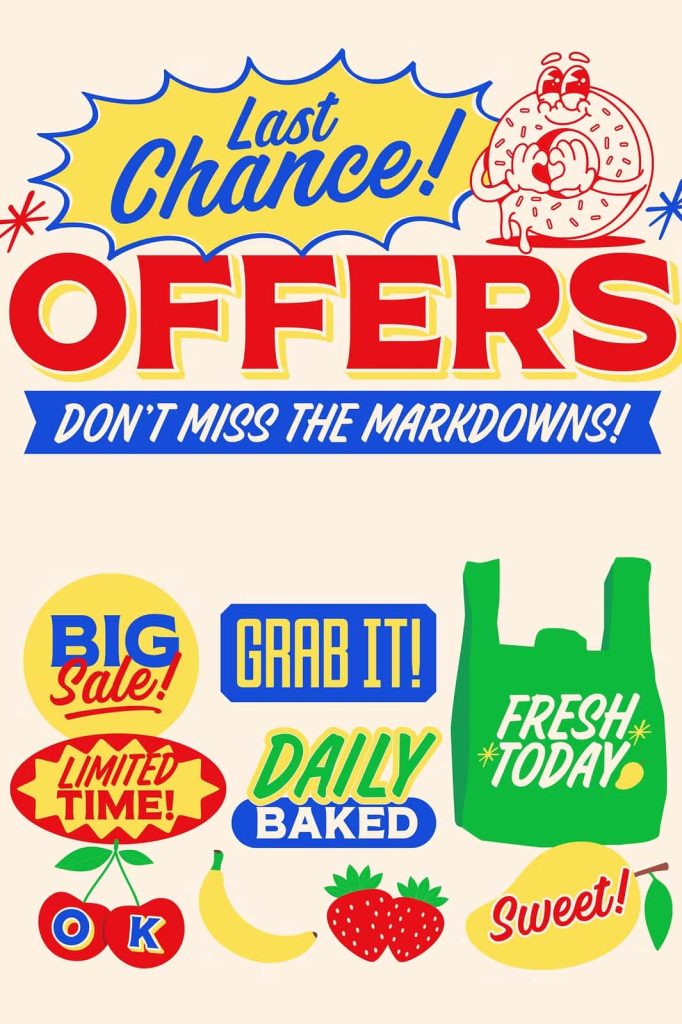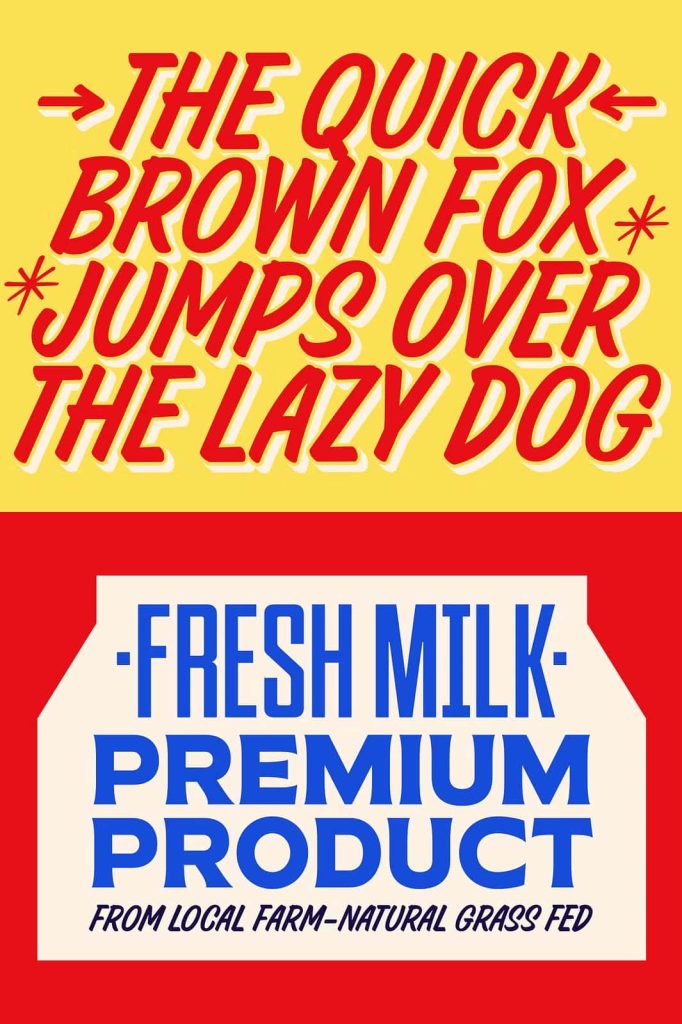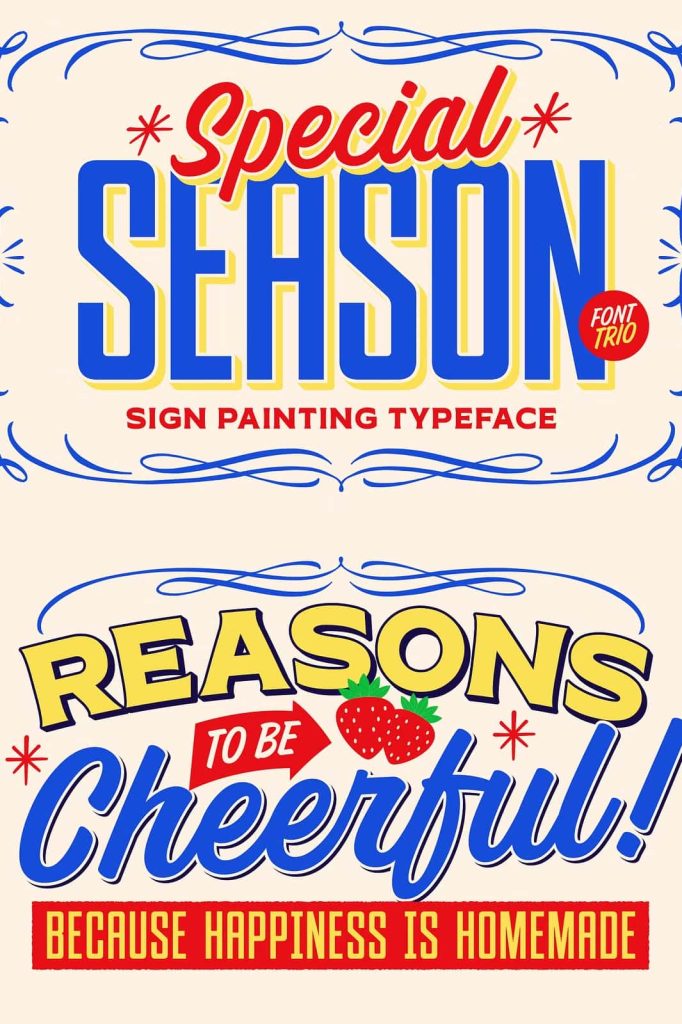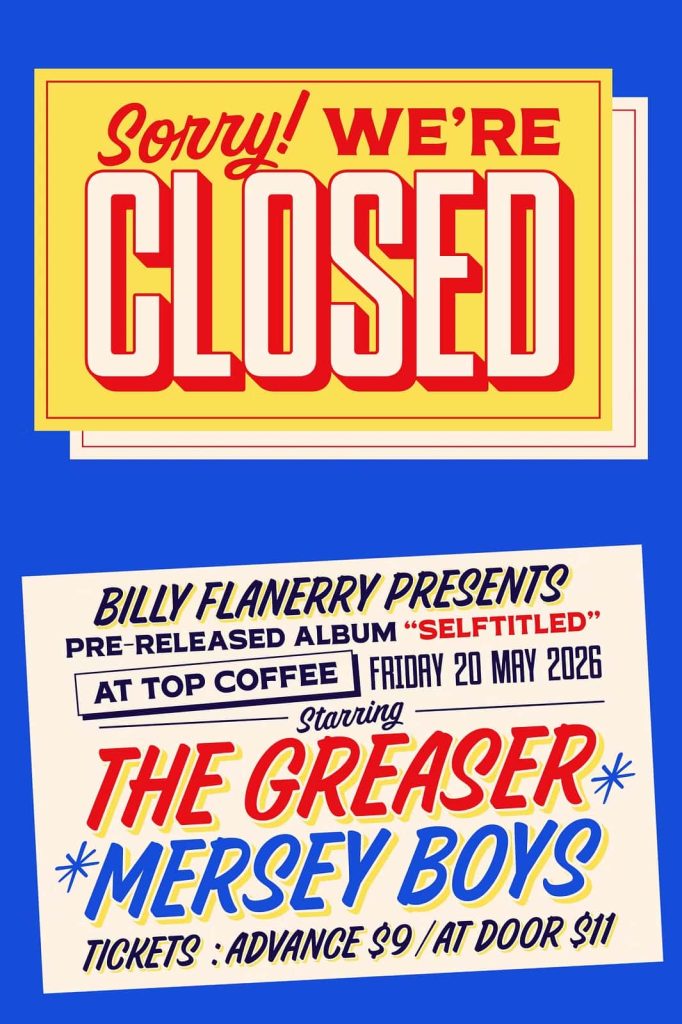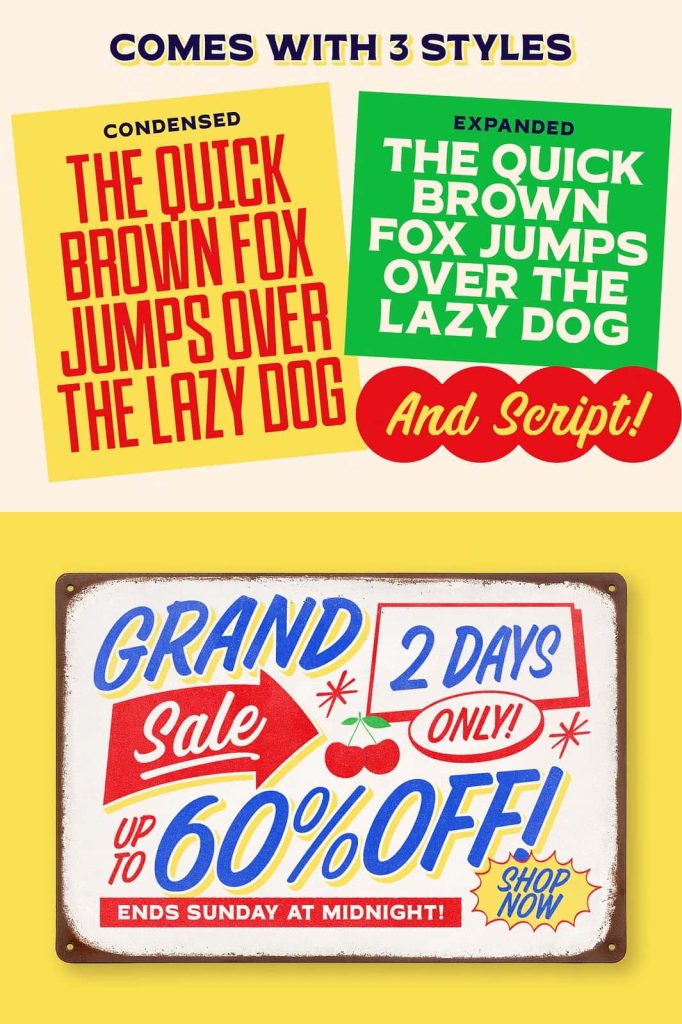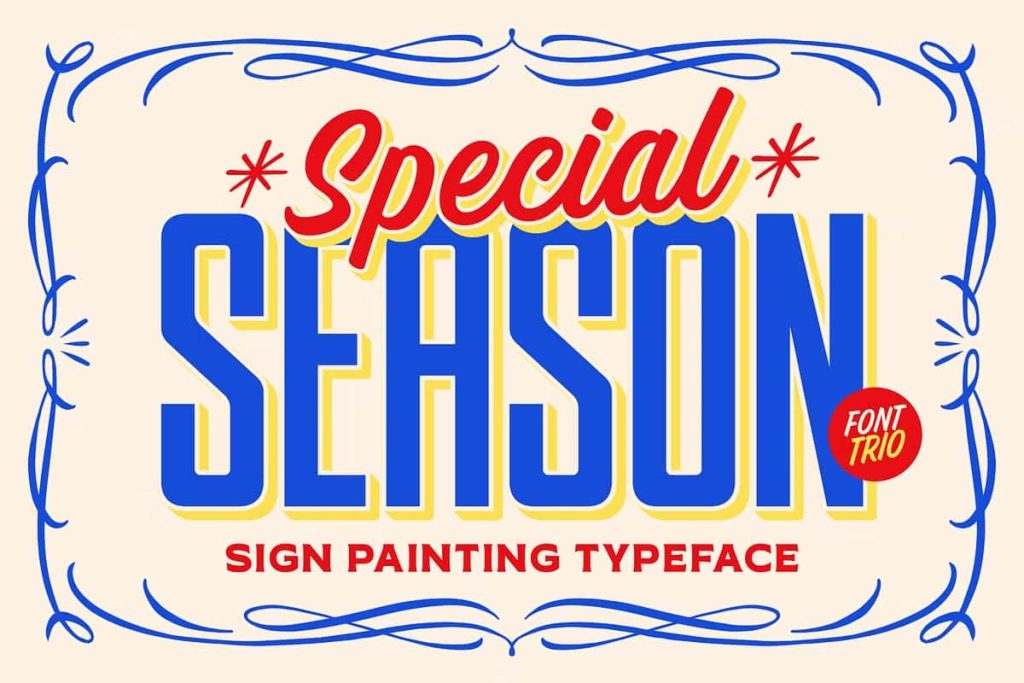
TNSC Special Season – Font Trio
TNSC Special Season Font Trio: A Versatile Typeface Collection for Creative Design
TNSC Special Season delivers a powerful and flexible typographic solution through its complete font trio system. This collection combines three distinct styles—Brush, Sans Serif, and Serif—into one cohesive package. Inspired by classic sign painting, it brings a handcrafted feel while maintaining modern usability across various design applications.
Designers can use this font trio to build strong visual identities, create dynamic layouts, and maintain consistency across projects. With the addition of catchwords and symbols, TNSC Special Season offers even more creative possibilities, allowing users to enhance their typography with decorative and expressive elements.
What Makes TNSC Special Season Unique?
TNSC Special Season stands out because it provides multiple styles within a single family. Instead of relying on one typeface, designers gain access to three complementary styles that work seamlessly together. This approach simplifies the design process while expanding creative flexibility.
The influence of classic sign painting adds authenticity and character. Each style reflects handcrafted techniques, making the typography feel more personal and engaging.
Core Features
• Complete font trio: Brush, Sans Serif, and Serif styles
• Inspired by traditional sign painting techniques
• Includes catchwords and decorative symbols
• Balanced combination of classic and modern design
• Suitable for both print and digital applications
Explore the Three Styles
The strength of TNSC Special Season lies in its diversity. Each style serves a unique purpose while maintaining visual harmony across the collection.
Brush Style
The brush style captures the energy and movement of hand-painted lettering. It introduces a dynamic and expressive feel, making it ideal for headlines, logos, and creative accents. The natural strokes add personality and draw immediate attention.
Sans Serif Style
The sans serif style provides a clean and modern foundation. It enhances readability and works well for body text, supporting elements, and structured layouts. Designers can rely on this style to balance the more decorative aspects of the trio.
Serif Style
The serif style adds elegance and tradition. Its refined details make it perfect for sophisticated branding, editorial design, and formal presentations. It complements both the brush and sans serif styles, creating a well-rounded typographic system.
Catchwords and Symbols for Added Creativity
TNSC Special Season goes beyond standard typography by including a collection of catchwords and symbols. These elements allow designers to enhance their compositions without creating additional graphics from scratch.
Catchwords can emphasize key messages, while symbols add decorative flair. Together, they help build richer and more engaging visual designs.
Benefits of Extra Elements
• Save time by providing ready-to-use design assets
• Enhance visual storytelling with minimal effort
• Create cohesive and polished compositions
• Add personality and uniqueness to projects
Best Use Cases for TNSC Special Season
This font trio adapts easily to a wide range of design needs. Its versatility makes it a valuable tool for both professional designers and creative enthusiasts. By combining the three styles, users can create layered and visually engaging layouts.
Ideal Applications
• Branding projects that require a cohesive visual identity
• Packaging designs with a handcrafted and premium feel
• Advertising materials that need strong visual impact
• Printed materials such as posters, flyers, and brochures
• Social media graphics with dynamic typography
How to Use TNSC Special Season Effectively
To get the most out of TNSC Special Season, designers should combine the three styles strategically. Use the brush style for emphasis, the serif style for elegance, and the sans serif style for clarity. This layered approach creates a balanced and professional design.
Maintain consistency in spacing and alignment to ensure readability. Avoid overusing decorative elements, and instead focus on creating clear visual hierarchy. When used thoughtfully, this font trio can transform simple layouts into compelling visual experiences.
Design Tips
• Mix styles carefully to create contrast and hierarchy
• Use brush lettering for focal points and highlights
• Apply sans serif for readability and structure
• Incorporate symbols sparingly for visual accents
TNSC Special Season offers a complete and versatile typographic solution through its thoughtfully designed font trio. By combining brush, sans serif, and serif styles with additional catchwords and symbols, it empowers designers to create impactful and cohesive designs.
This collection not only simplifies the design process but also expands creative possibilities. Whether you are working on branding, packaging, or print materials, TNSC Special Season provides the tools you need to produce professional and visually engaging results.